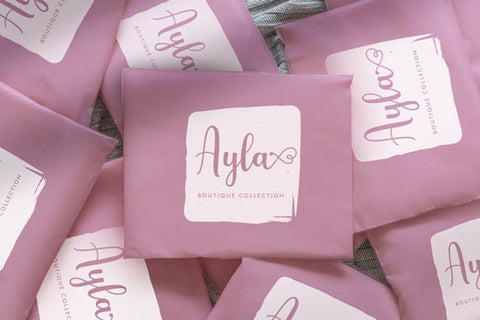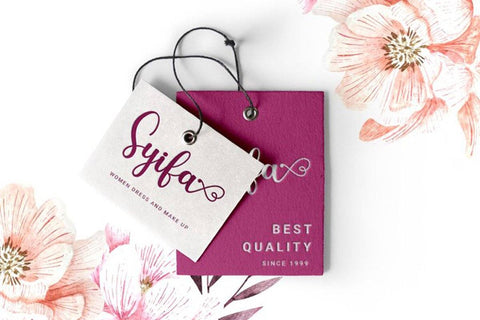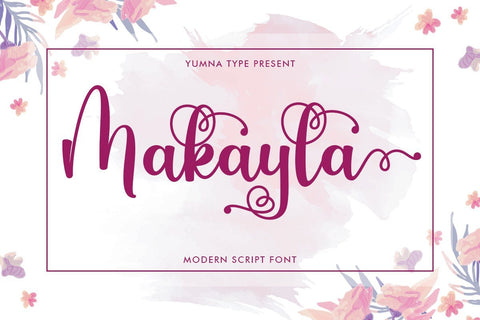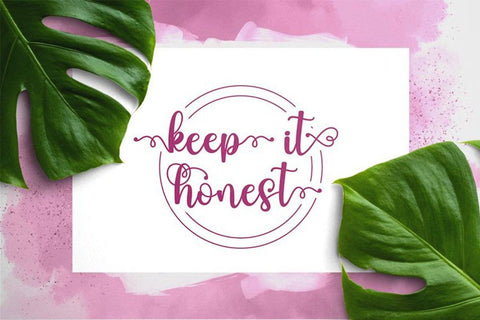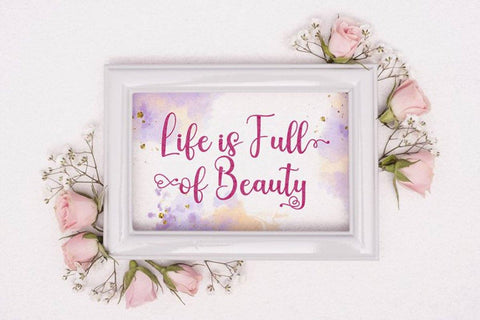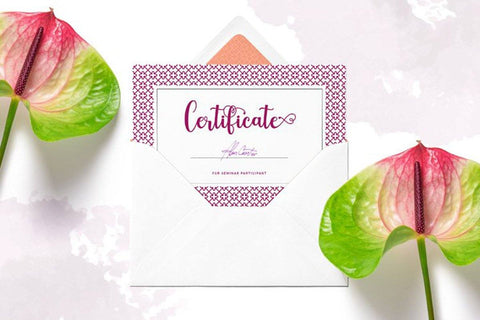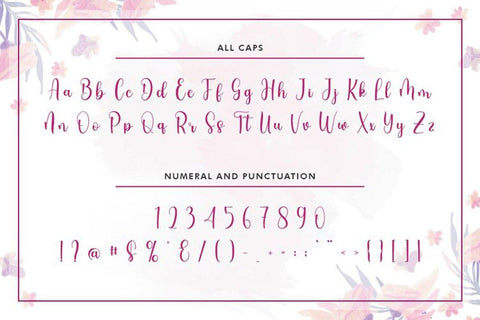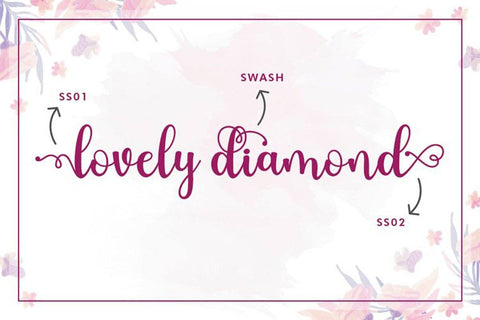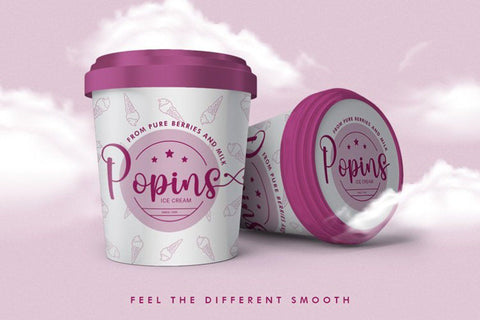
Makayla Beautiful Script Font
Makayla is a beautiful script font with a natural and unique design will make your project more beautiful and powerful. The font is suitable for your branding project and any design.
- 10 Alternates
- 52 Swashes